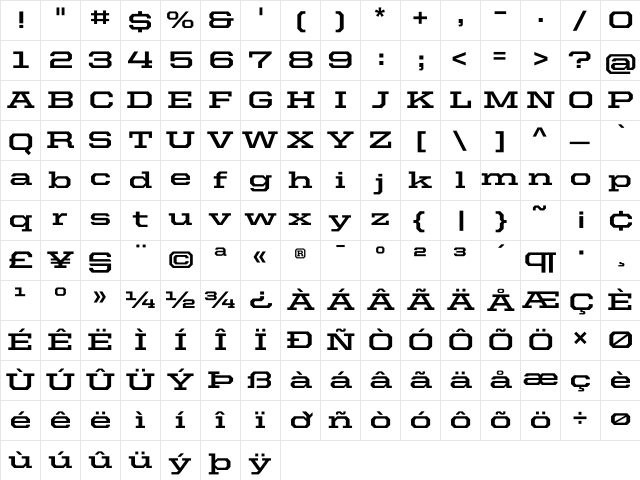
United Serif Ext Bold Free Font
United Serif Ext Bold
Foundry: House Industries
Designer: Tal Leming
Design Context for United Serif Ext
United Serif Ext carries the refined structure of traditional serif typography, with bracketed terminals and considered proportions that communicate credibility and craft. Its bold stroke weight gives it real presence on the page.
Pro Tip: Use United Serif Ext for editorial body copy and considered headline work. Pair with a neutral sans for UI elements or captions to create a classic hierarchy.